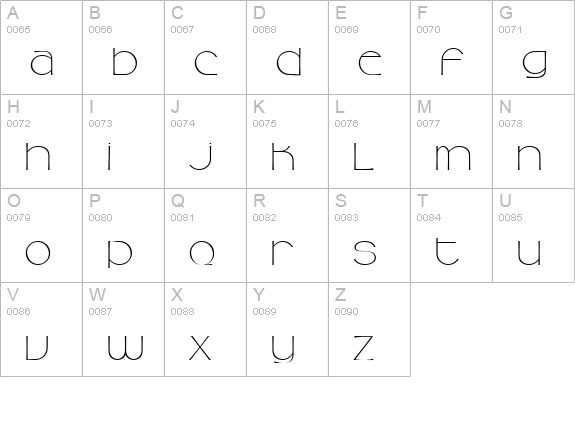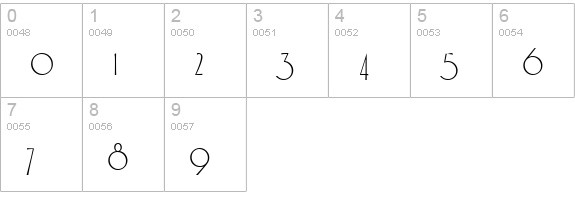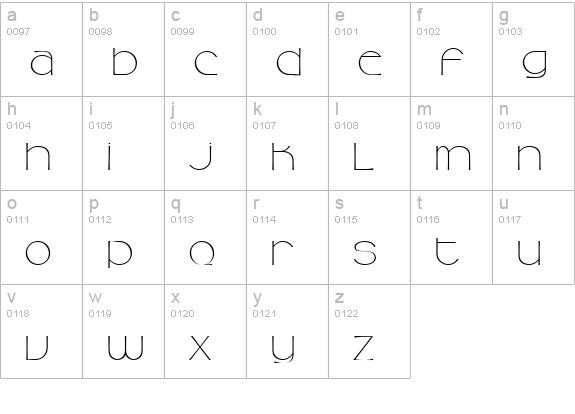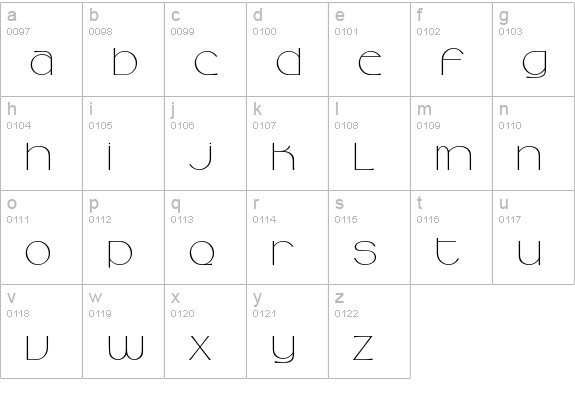
CamelliaD Font Details
CamelliaD font is a stunning and elegant typeface that exudes sophistication and charm. With its delicate strokes and graceful curves, this font is perfect for adding a touch of class to your projects. Whether you're designing invitations, logos, or branding materials, CamelliaD will elevate your work to new heights. The best part? CamelliaD is completely free to download at FontsMarket.com. That's right, you can access this beautiful font at no cost, making it an ideal choice for designers on a budget or anyone looking to enhance their creations with a touch of luxury. Don't miss out on the opportunity to add CamelliaD to your font collection and bring a touch of elegance to your designs today.